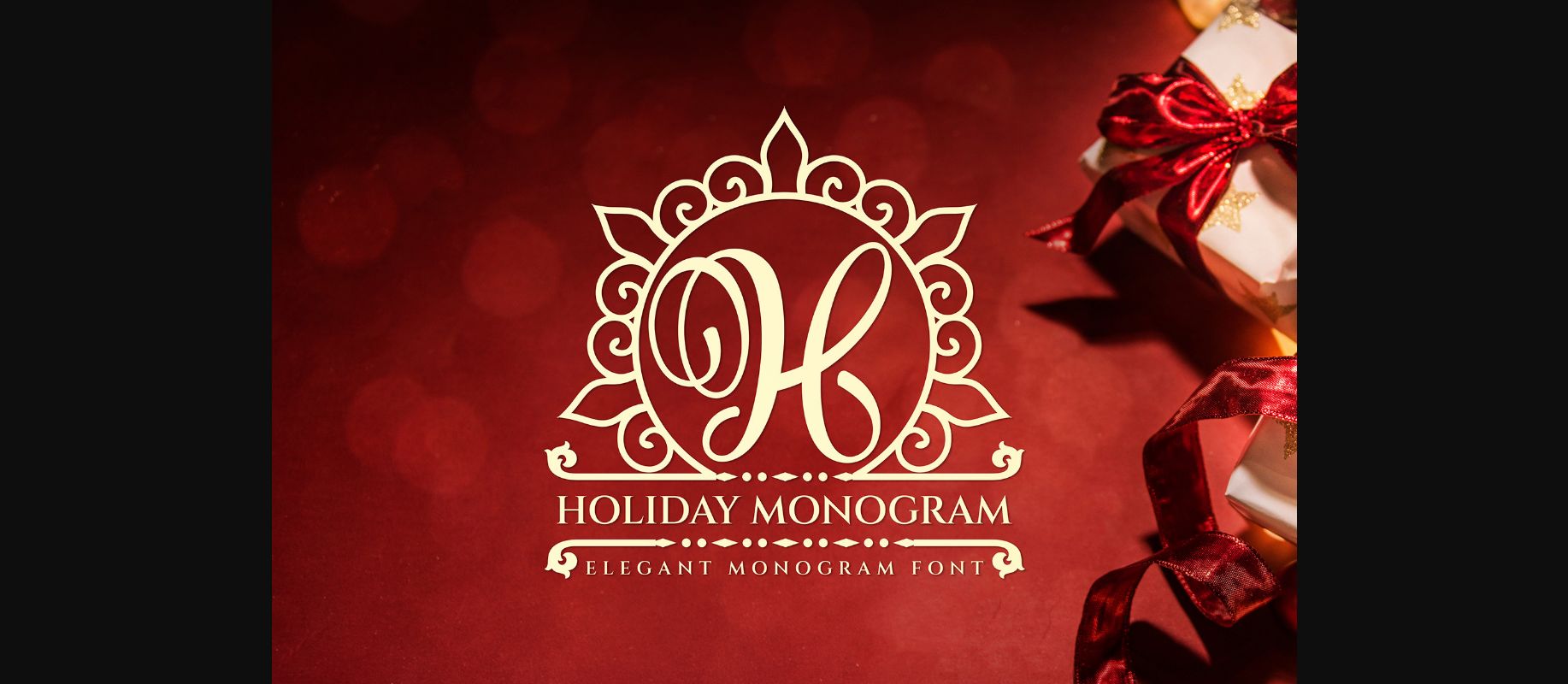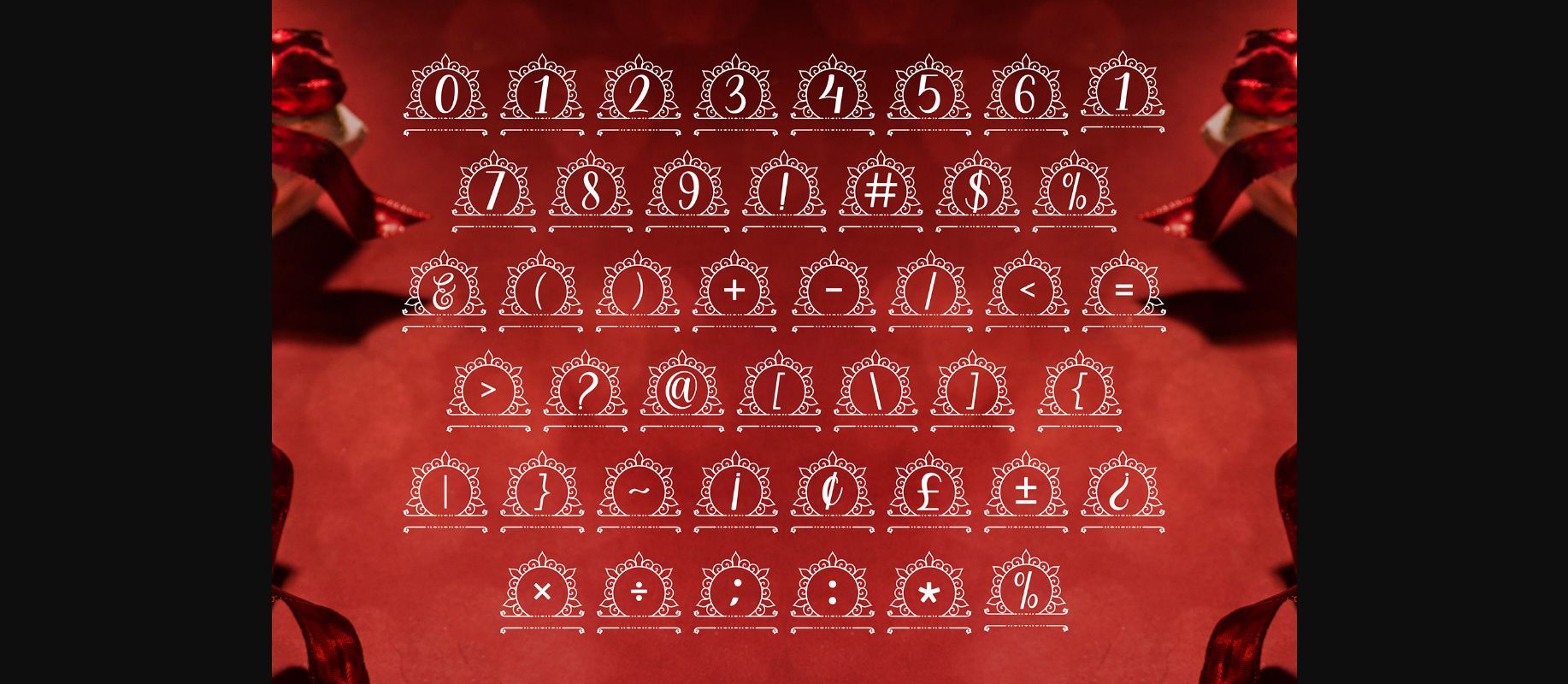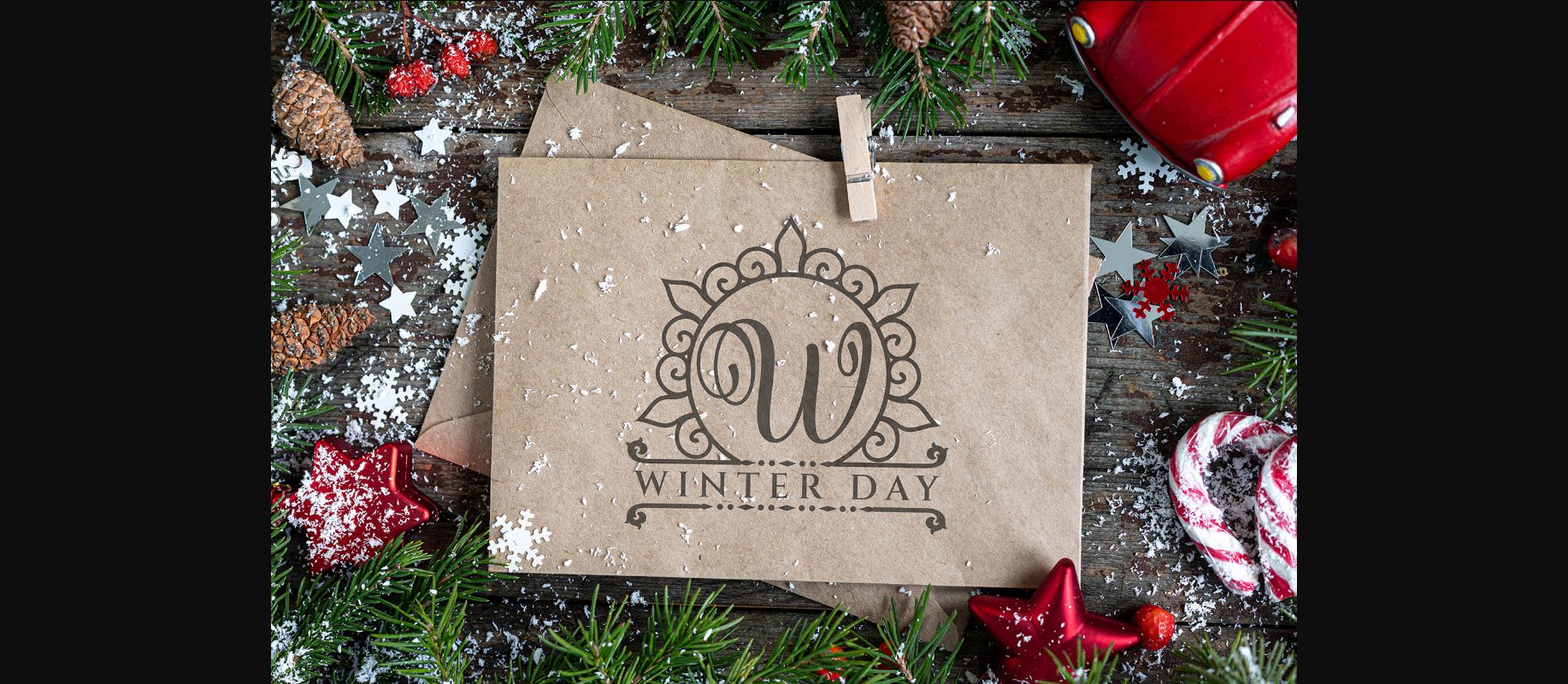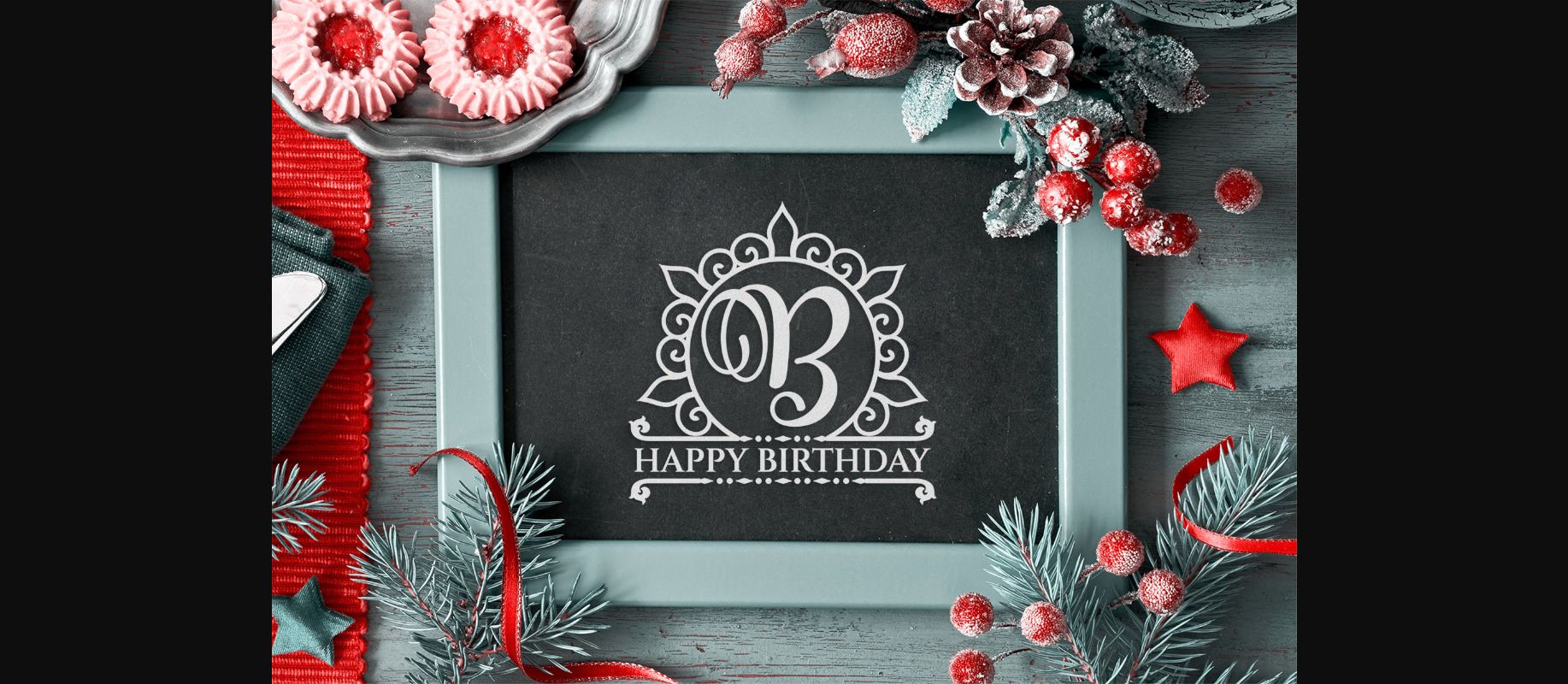
About Holiday Monogram Font
Holiday Monogram is a delicate and elegant handwritten decorative font. Its distinct and well rounded letters make this font a masterpiece. Fall in love with its incredibly versatile style and use it to create spectacular designs!